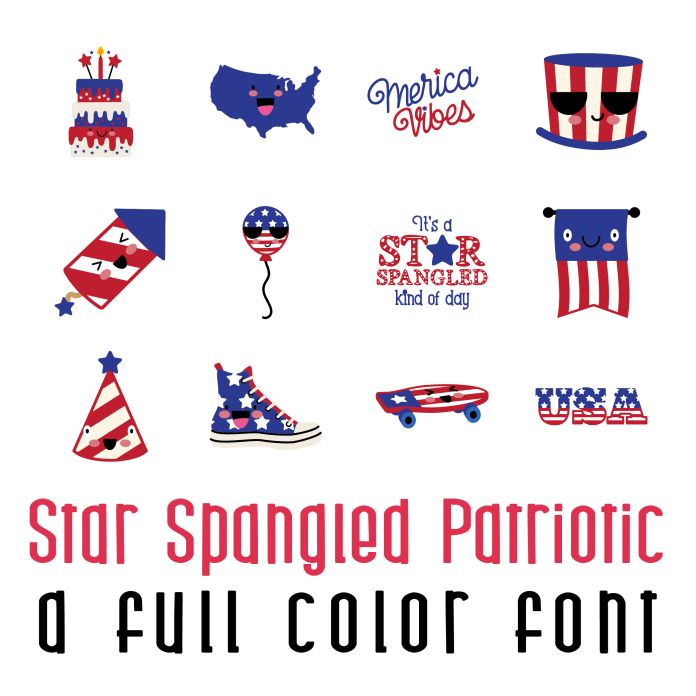
This fun full color font features 26 different patriotic kawaii styled imagery. Perfect for cards, crafts, gifts, decor, scrapbook pages, planner stickers, and more!